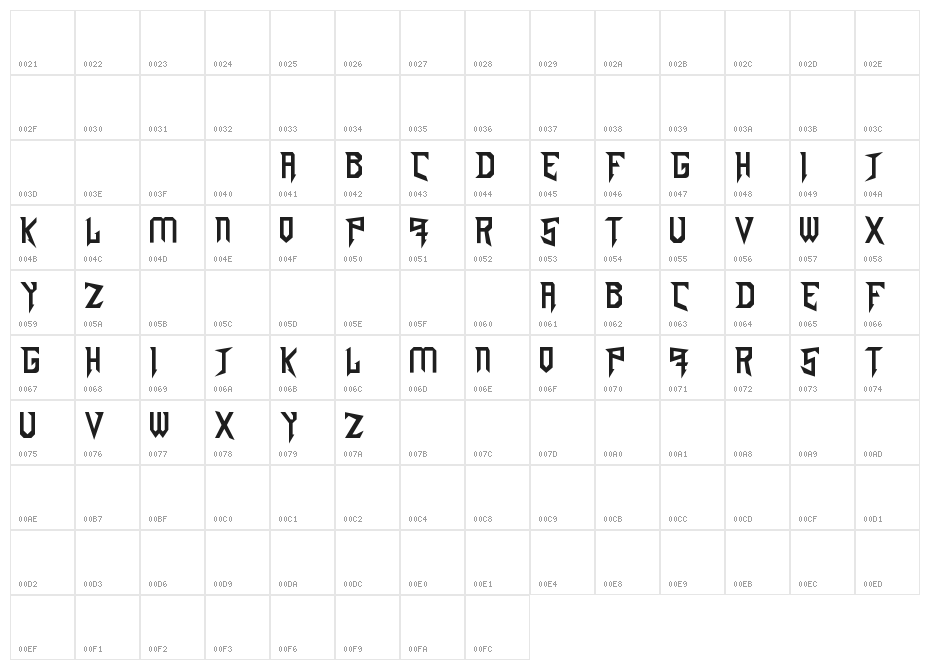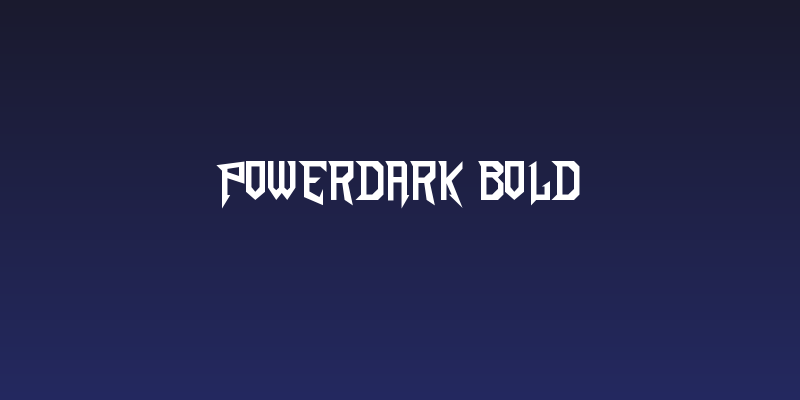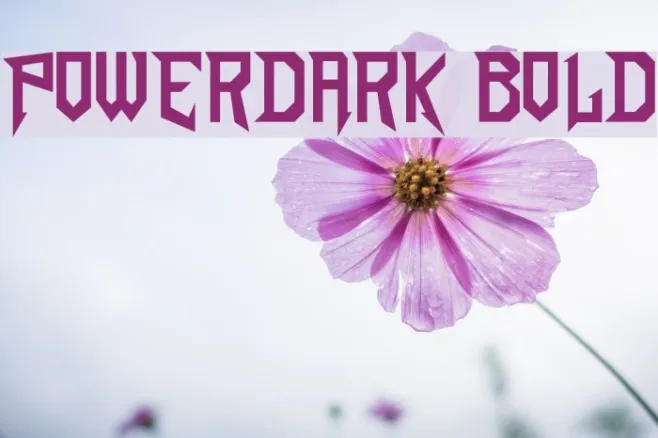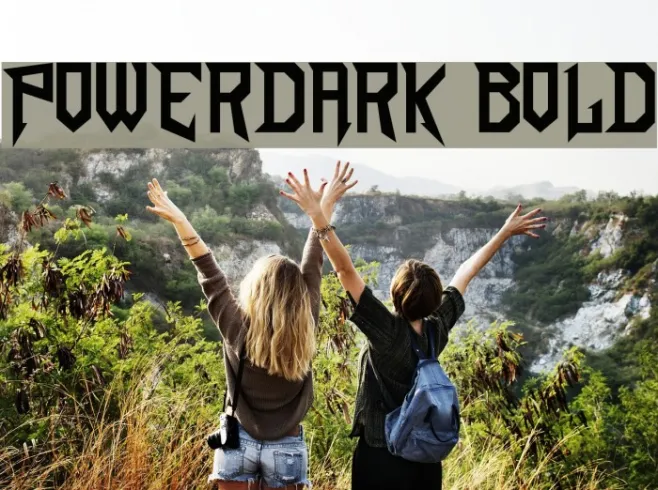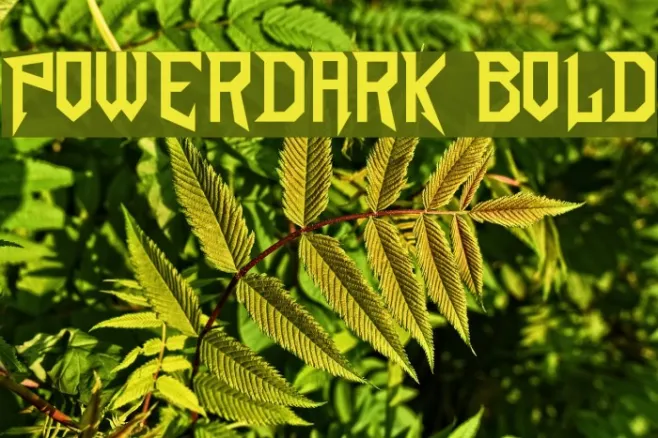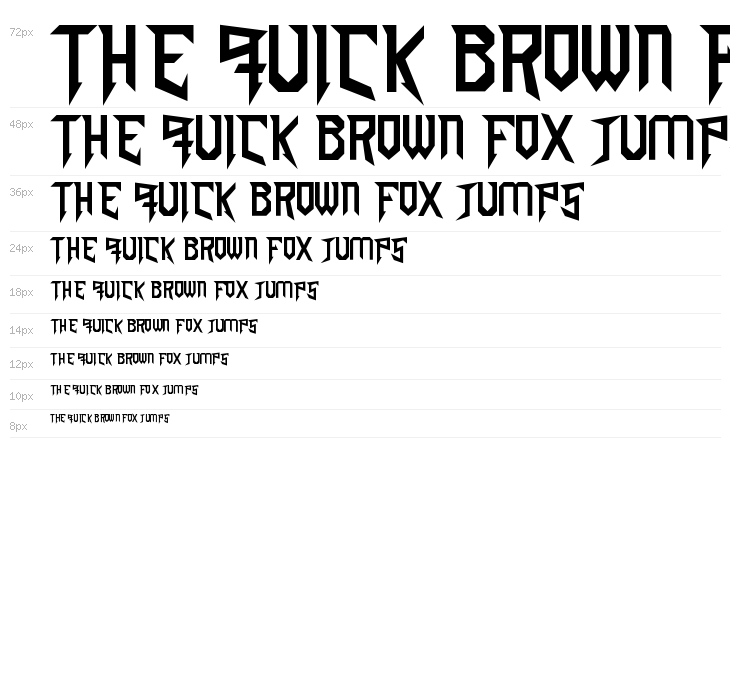
PowerDark Bold Font
PowerDark Bold Description
This font features a bold, angular design with sharp, geometric edges that give it a futuristic and aggressive appearance. The characters are crafted with a high level of detail, incorporating pointed serifs and unique cuts that create a dynamic visual impact. The uppercase letters are particularly striking, with a consistent height and width that maintain a uniform look across the alphabet. The font's style is reminiscent of modern digital or sci-fi themes, making it ideal for projects that require a strong, commanding presence.
| Proposed Projects | Ideal for video game titles, movie posters, branding for tech companies, or any project needing a bold, futuristic aesthetic. |